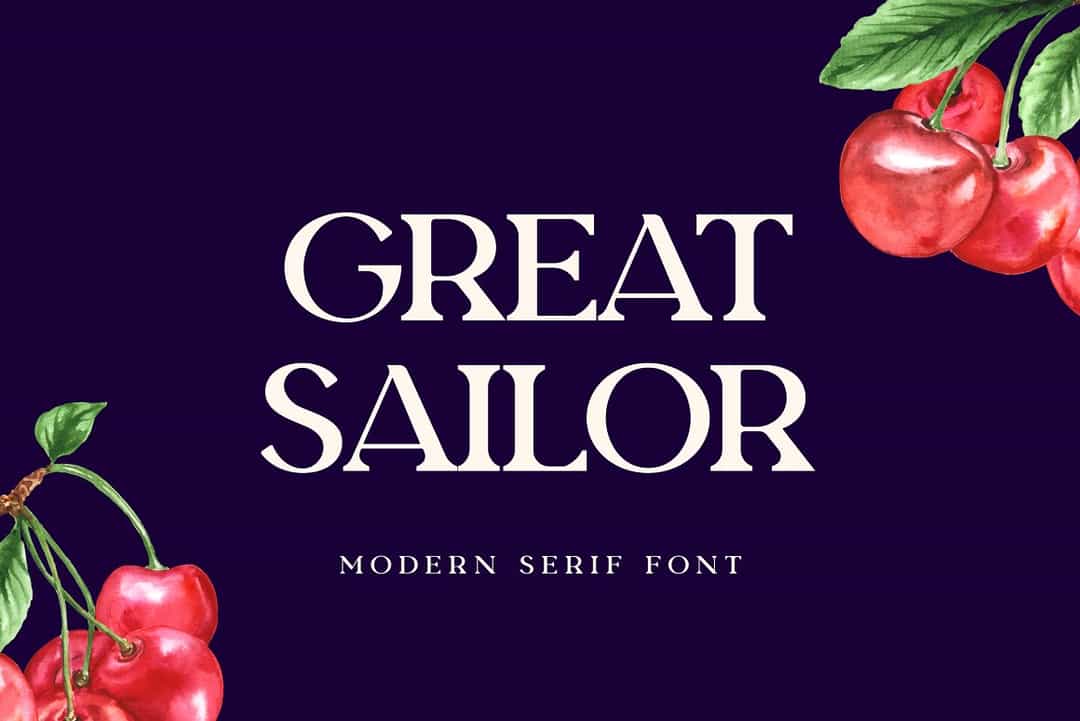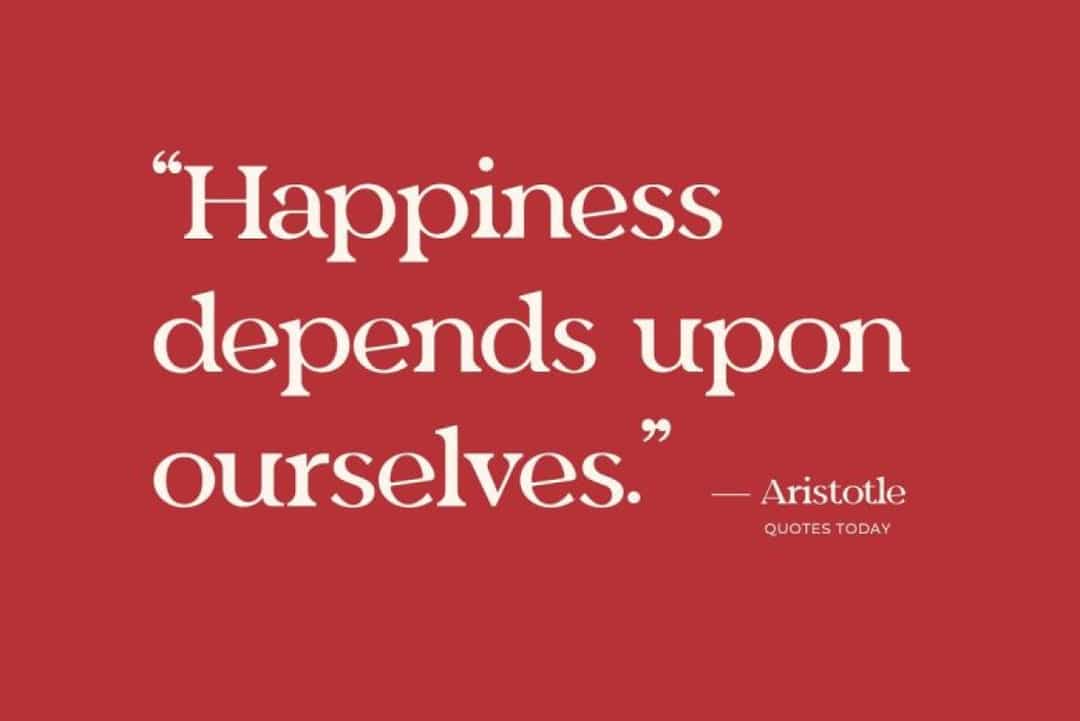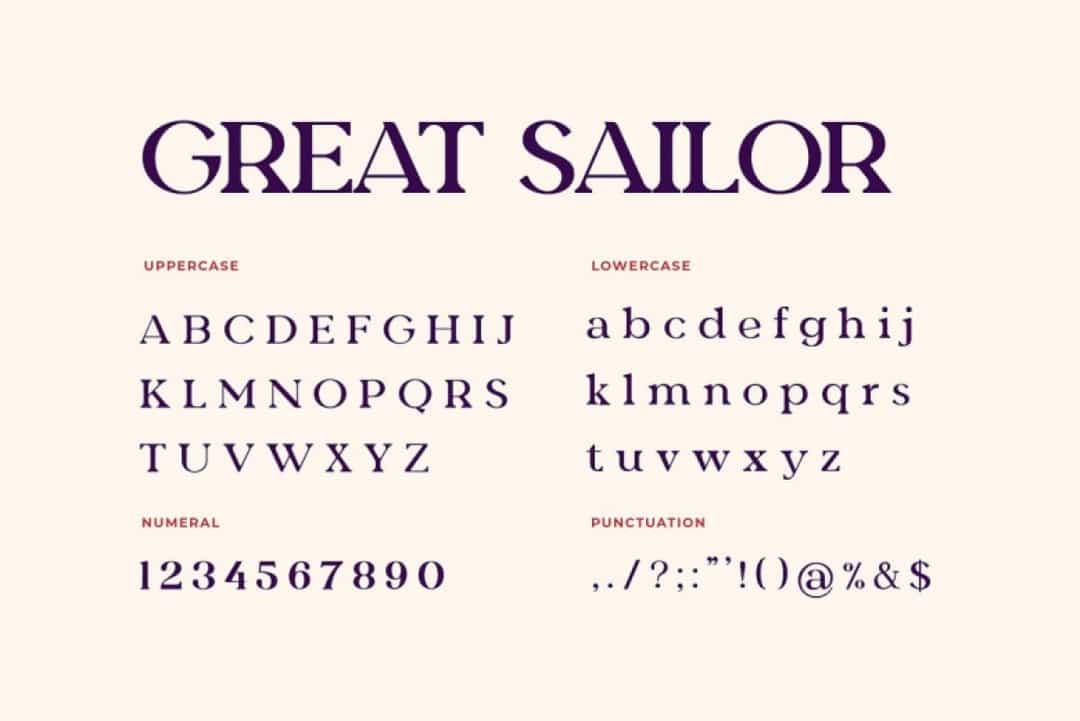
Great Sailoris an elegant, sophisticated and contemporary serif font designed by Rasterlab that is suitable for multiple designs such as logos, stationery, signature wedding invites and signature wedding programs as well as typography quotes or book or magazine covers; headers for websites; clothing designs with branding packages as well as fashion editorial designs that demonstrate feminine and masculine attributes.